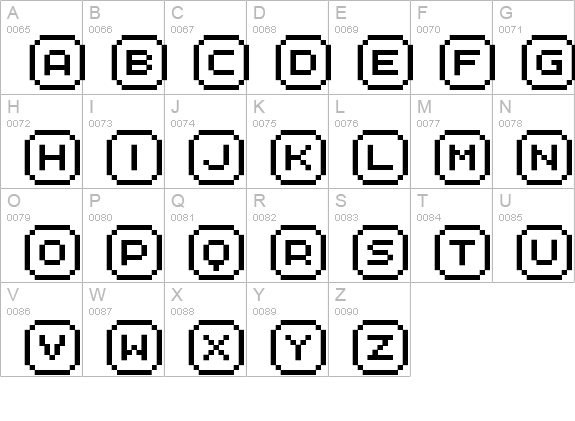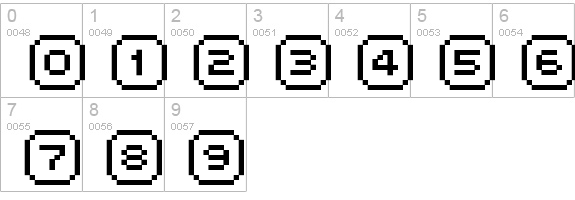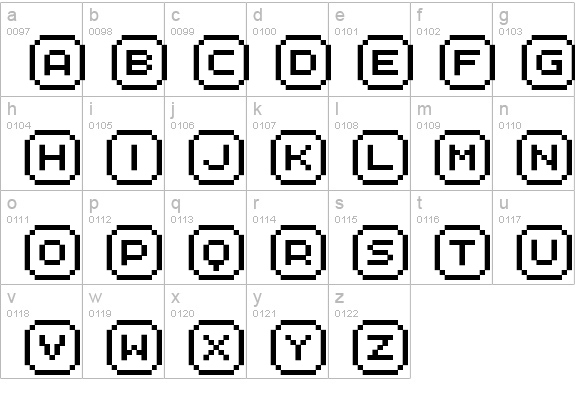
FFF Interface05 Font Details
The FFF Interface05 font is a modern and sleek typeface that combines simplicity with a touch of sophistication. With its clean lines and geometric shapes, this font is perfect for a wide range of design projects, from branding to web design. Its versatile style makes it suitable for both headers and body text, ensuring a cohesive and polished look. What sets FFF Interface05 apart is that it is completely free to download at FontsMarket.com. This means you can access this high-quality font without any cost, making it a valuable addition to your font collection. So whether you're a professional designer looking to enhance your projects or a hobbyist looking to experiment with typography, FFF Interface05 is a fantastic choice that won't break the bank. Download it today and elevate your designs with this stylish and contemporary font.